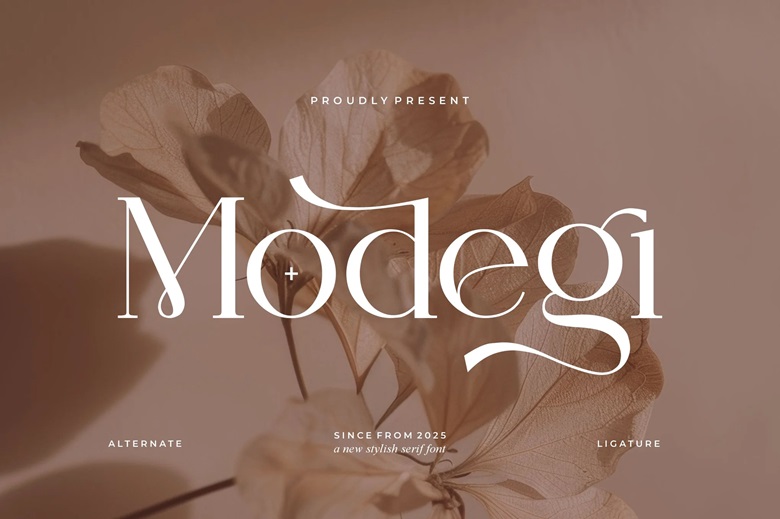
Modegi Font
Modegi is a stylish and sophisticated font type to all the branding and logo designs. This is a nice and beautiful character of a serif font which is elegant and classy. The font is applicable in the design of invitation cards, cool logos, movie titles, movie names, business cards, book titles, brand names, and other designs.
Modegi Serif is a serif font that is smooth, and has a sense of sophistication and the moment. This font is an ideal match to any project owing to its stylish ligatures.
Modegi Serif Font